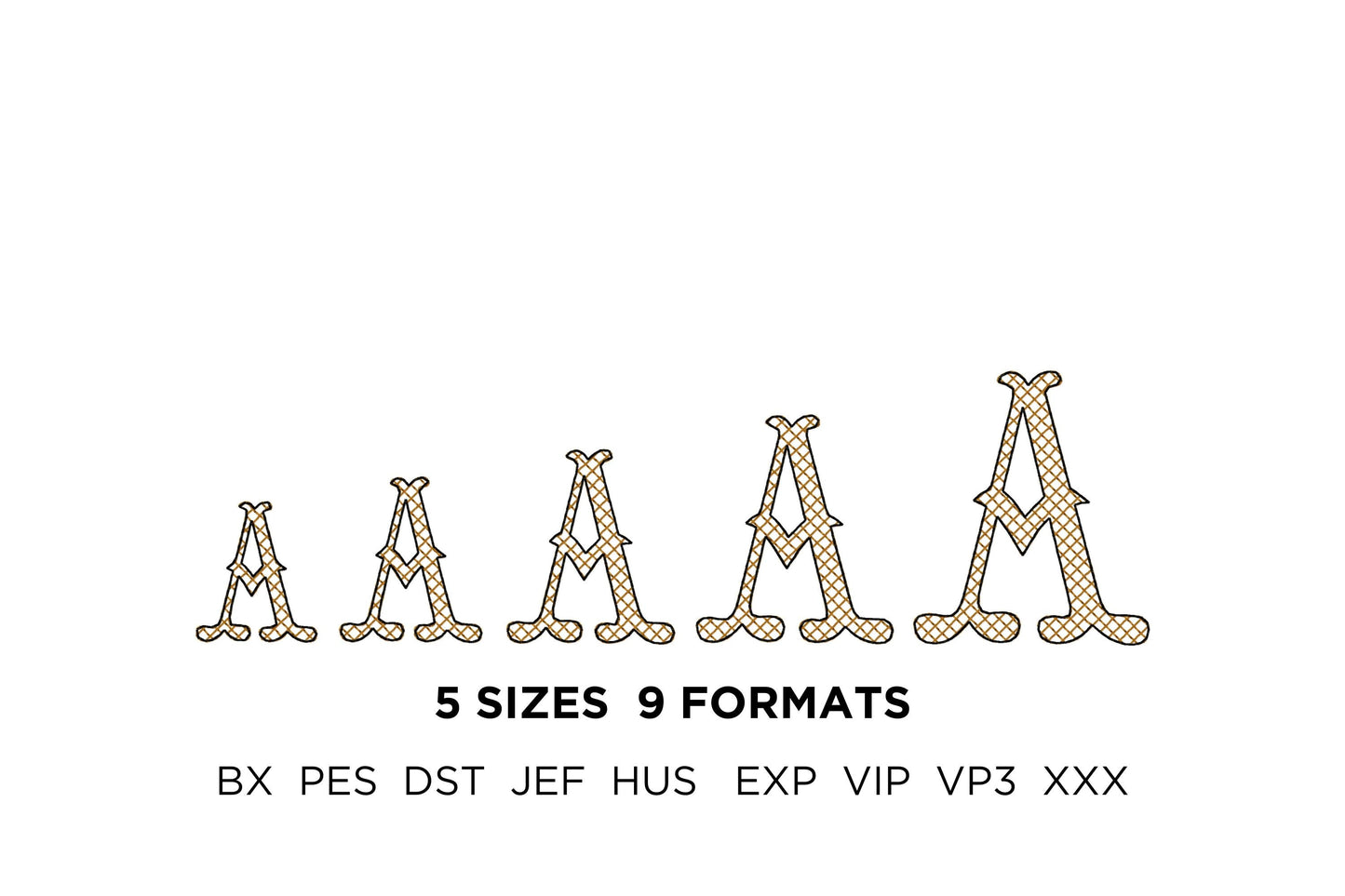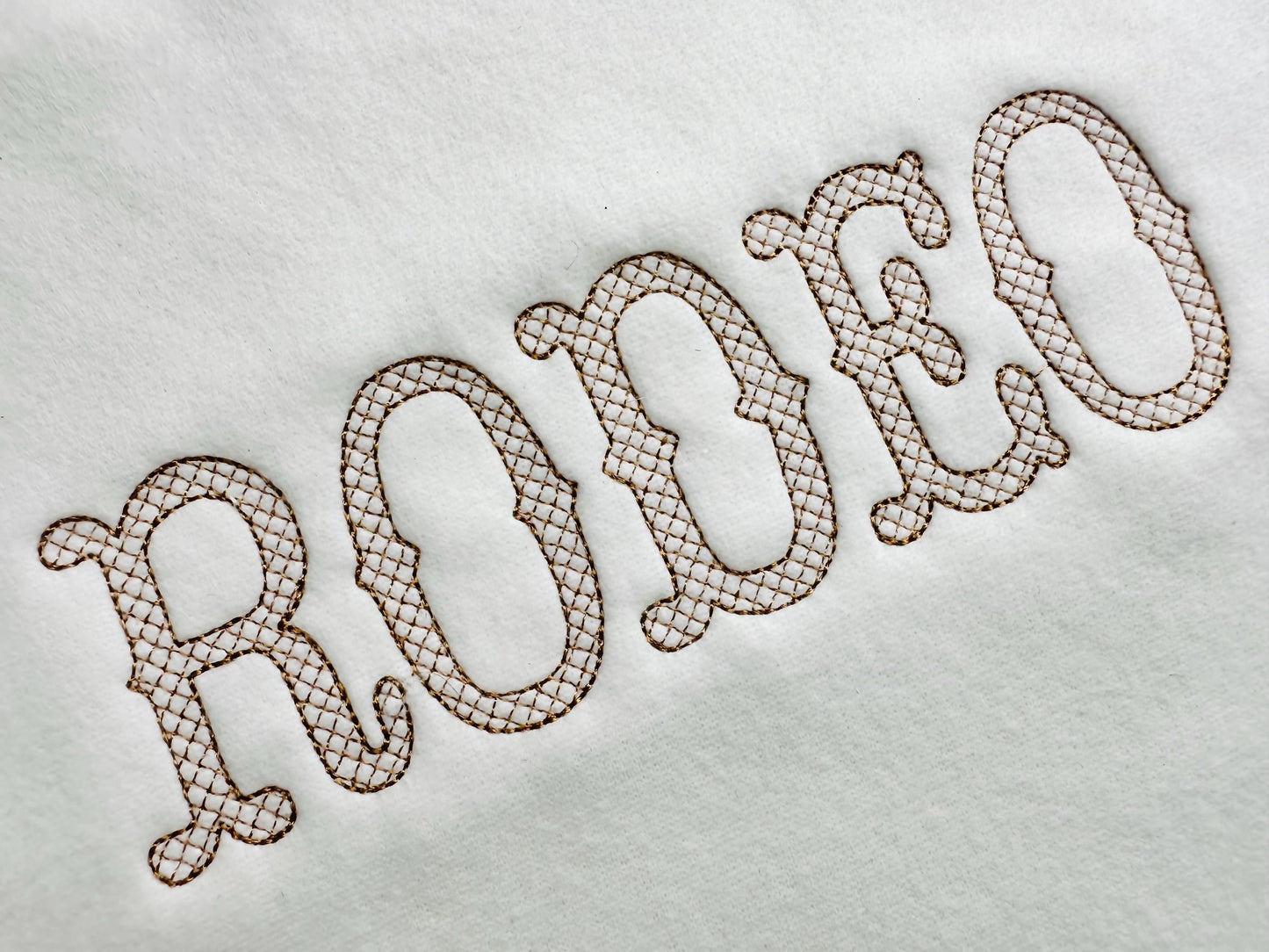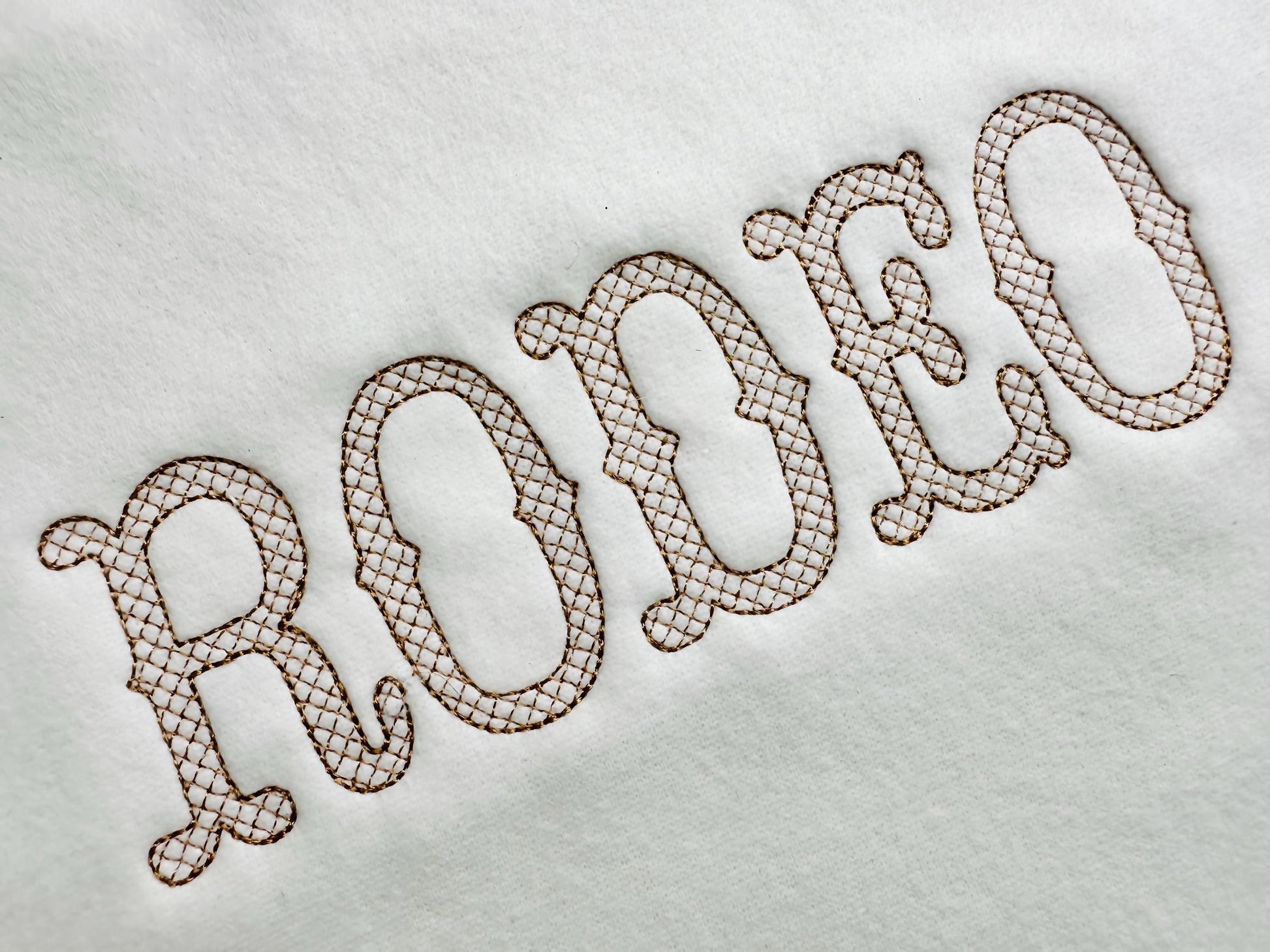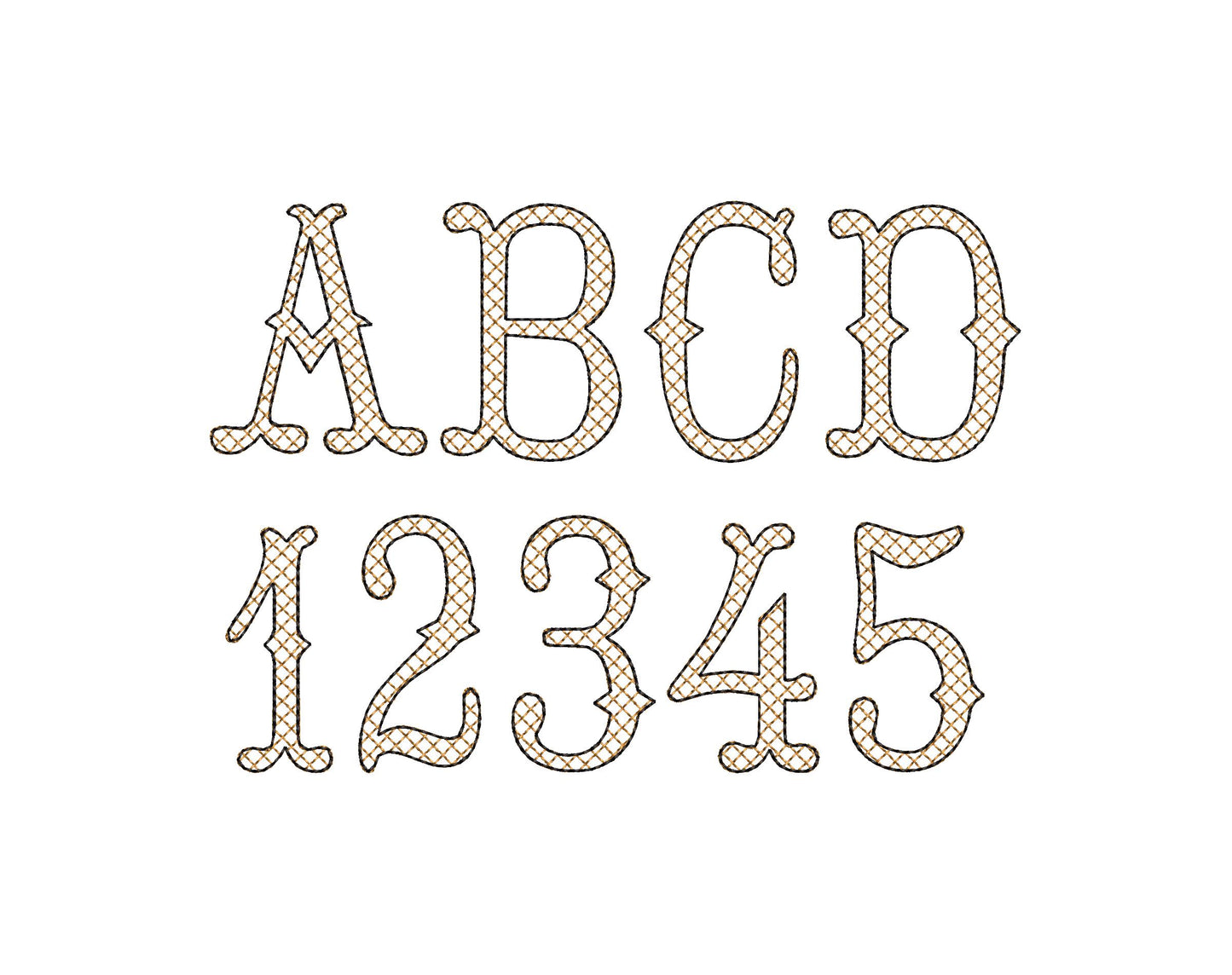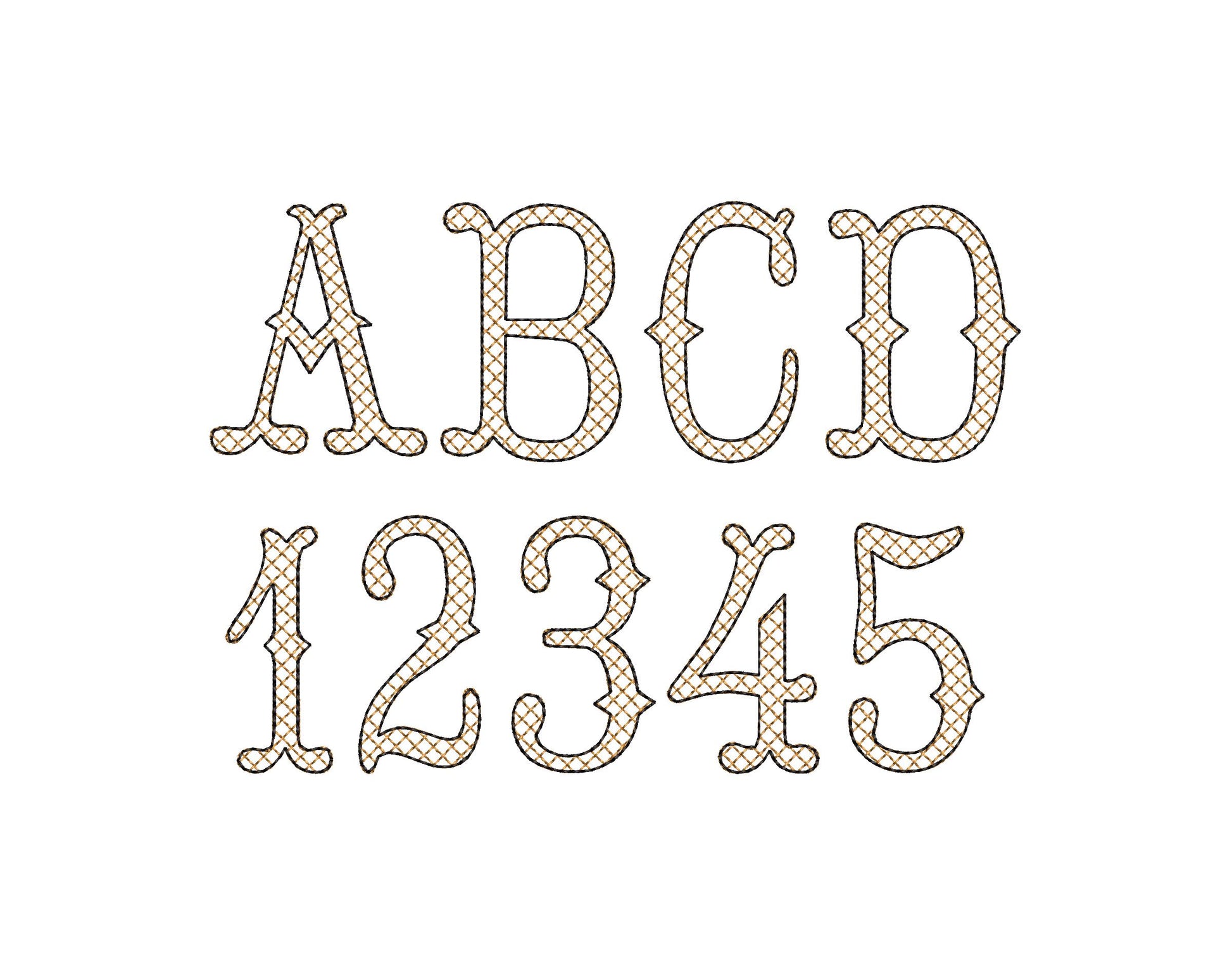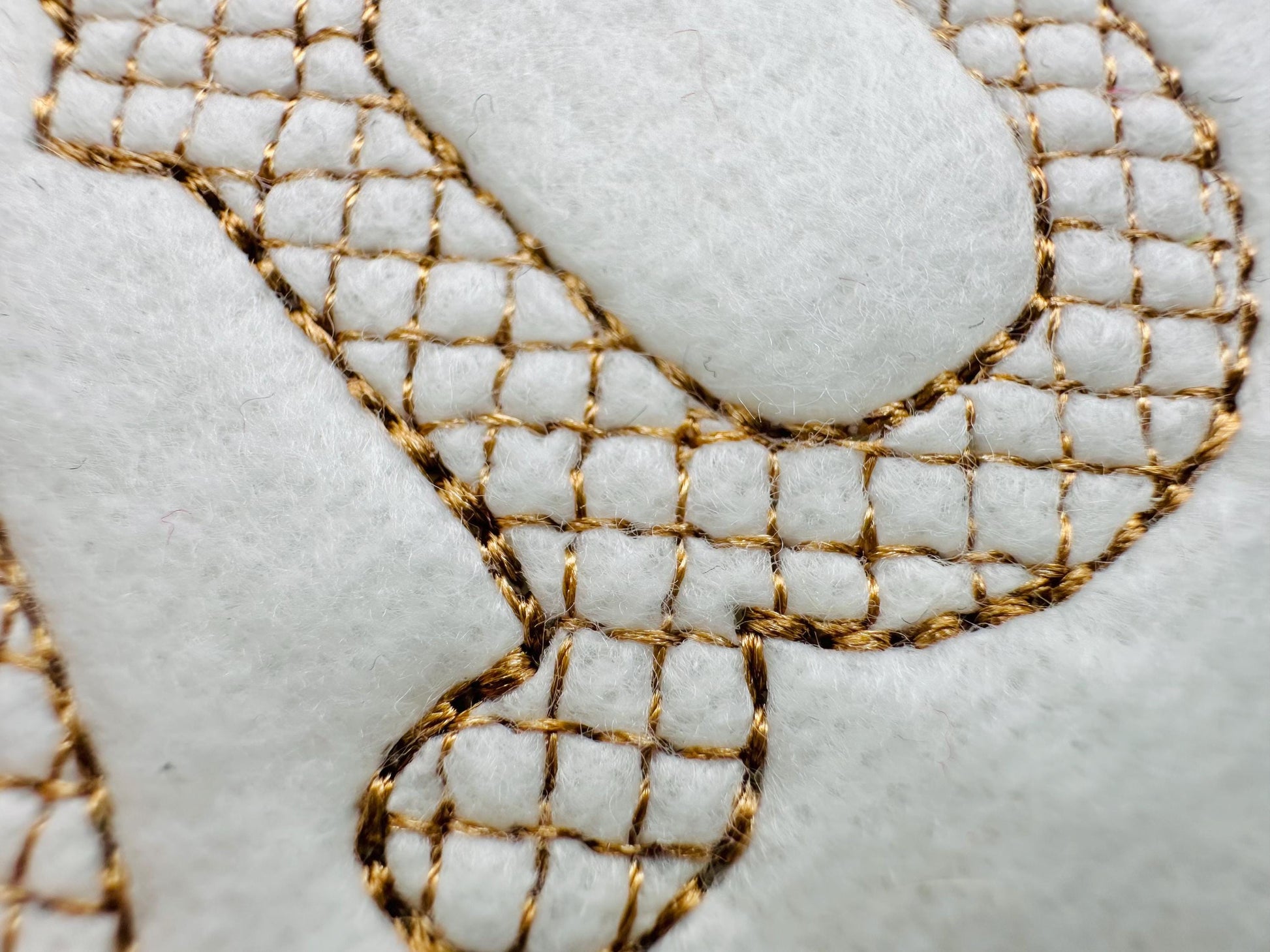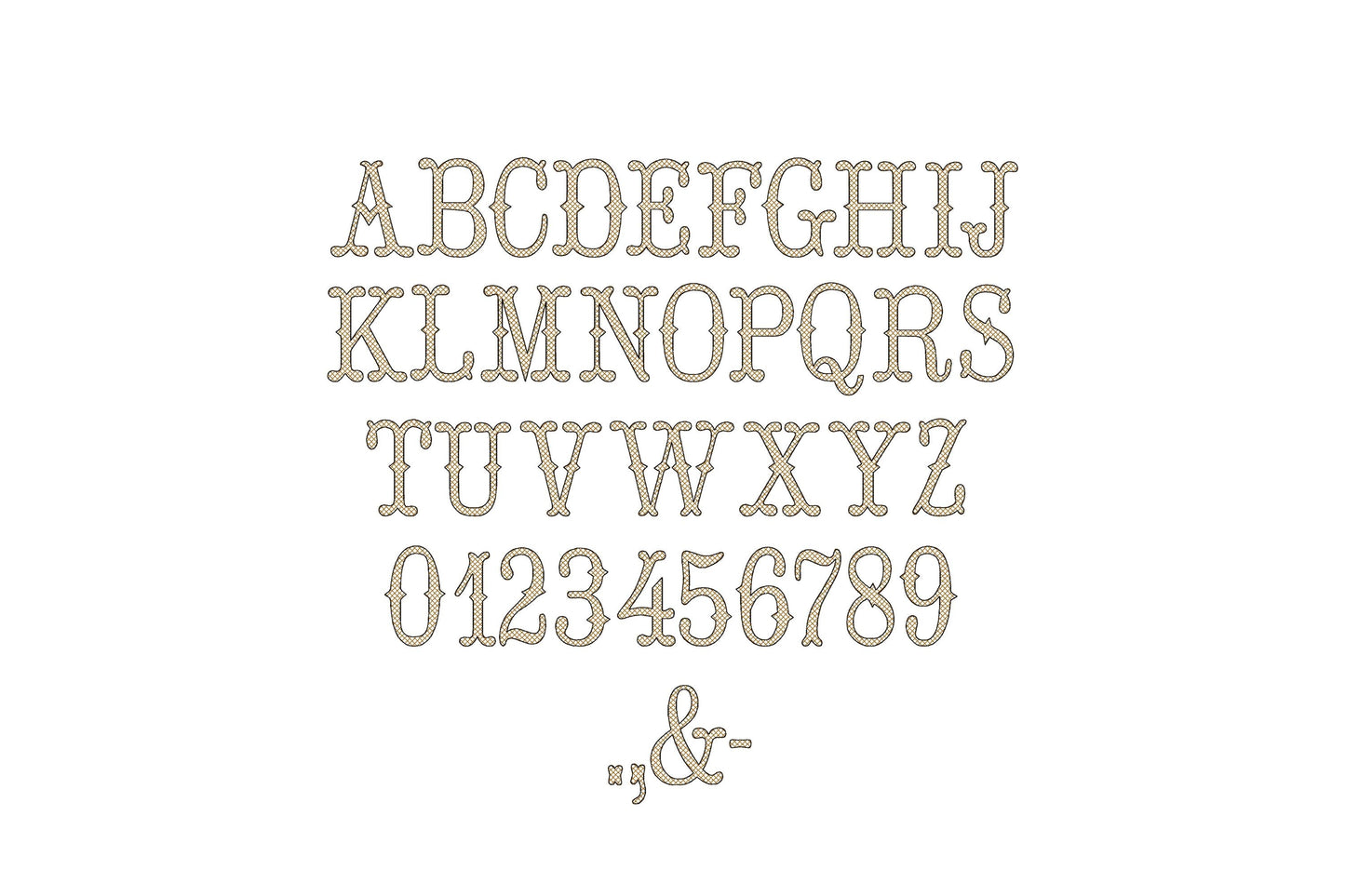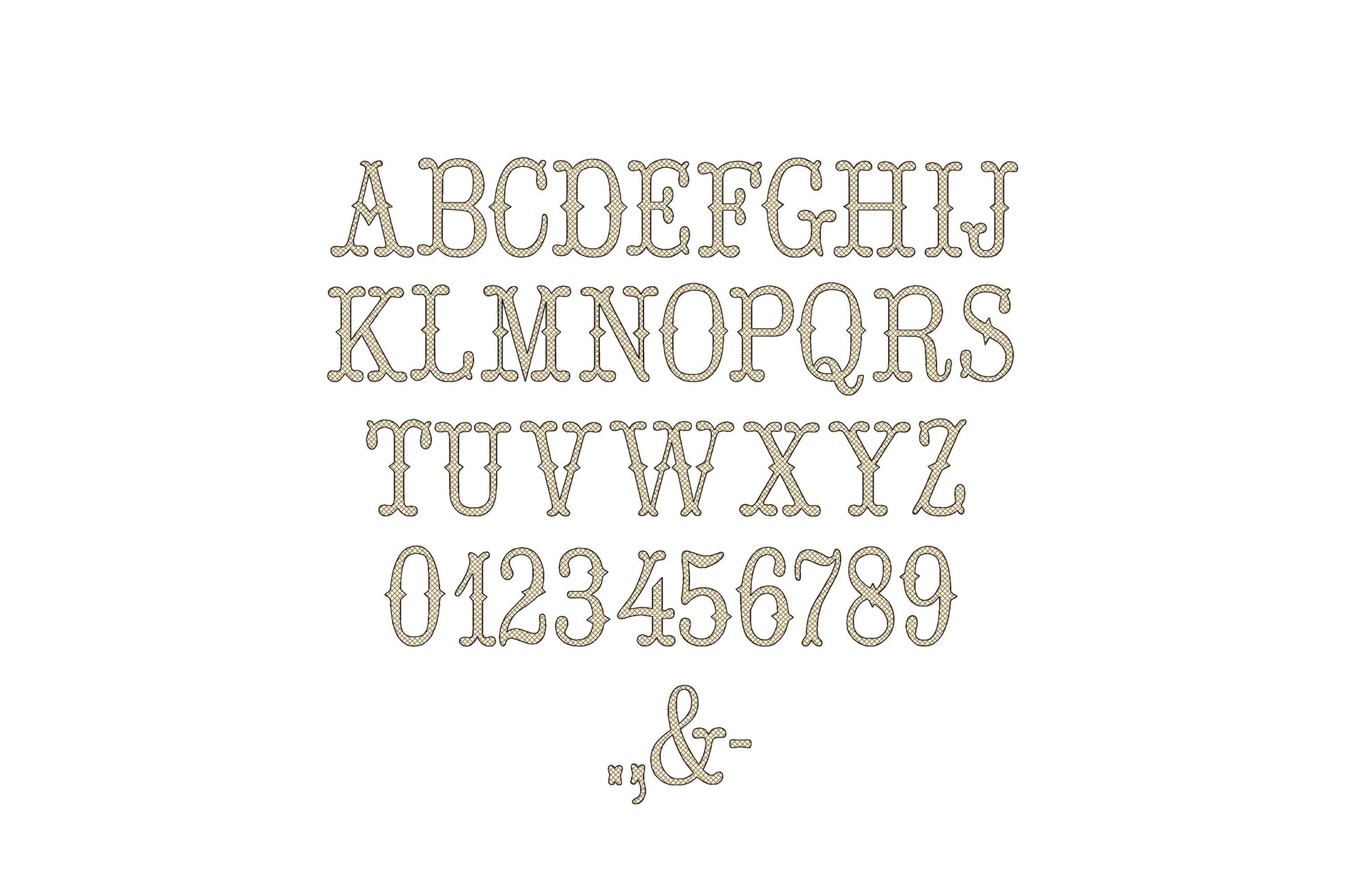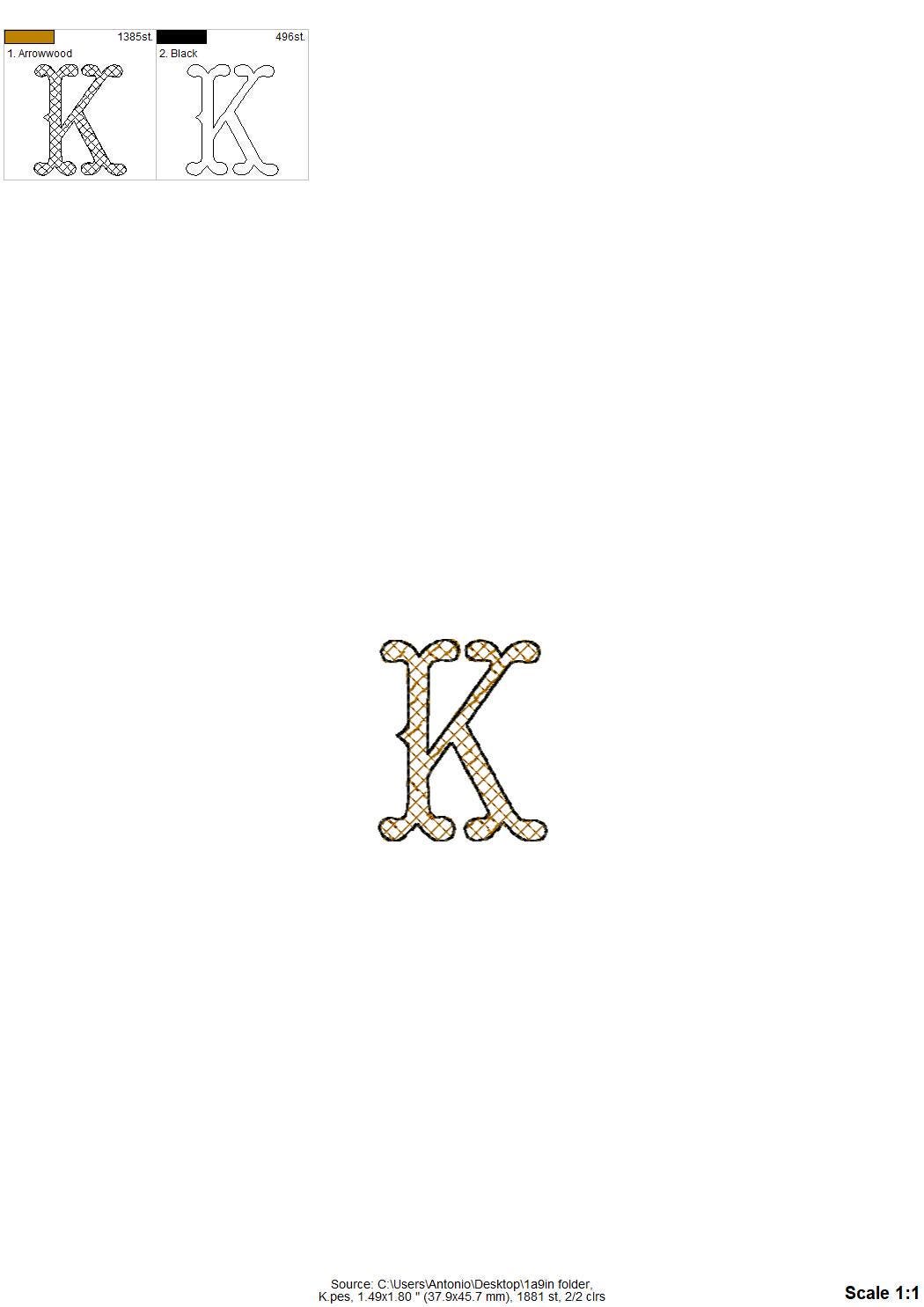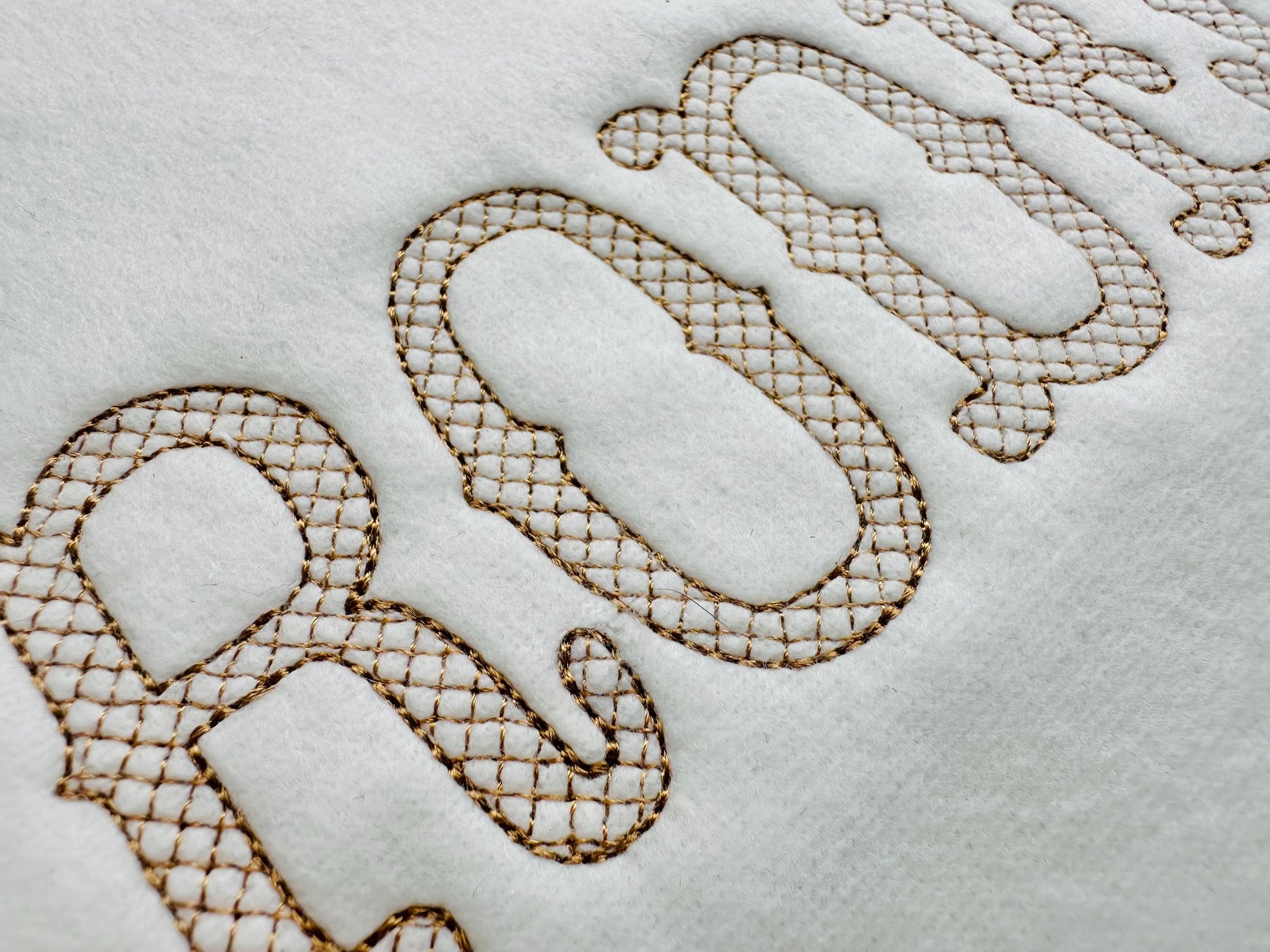
Or click to open the linkA western fishtail font in light stitch with a diamond pattern. Great for cowboy and cowgirl shirts, hats, bags and monograms.
Uppercase letters A to Z, numbers 0 to 9 and punctuation. Five sizes: 1.3, 1.6, 1.9, 2.2 and 2.6 inches. The light diamond pattern leaves the letters see-through, so the fabric shows.